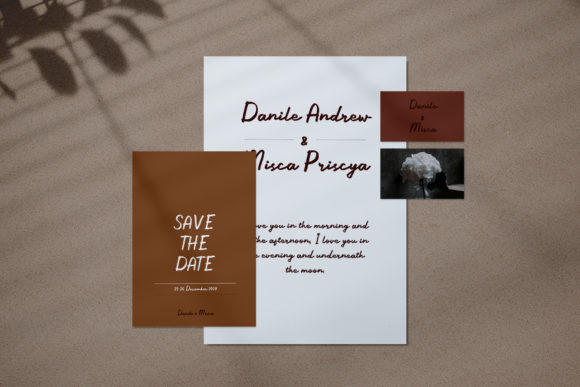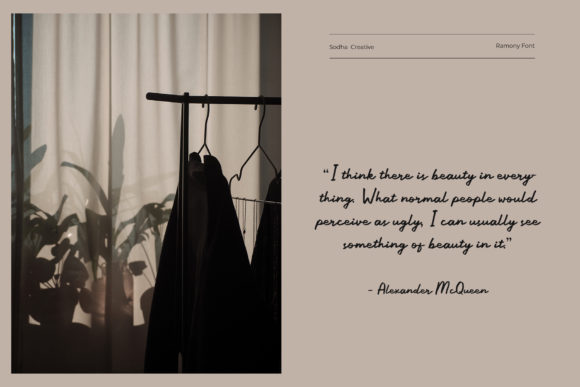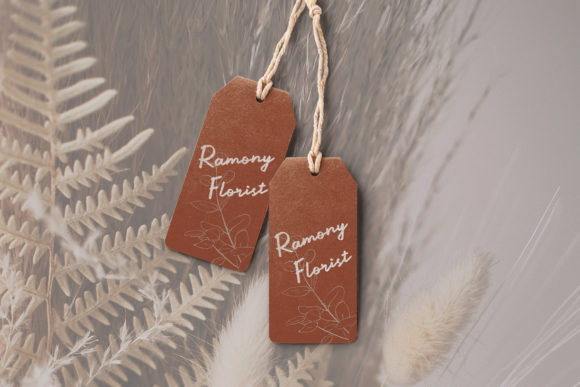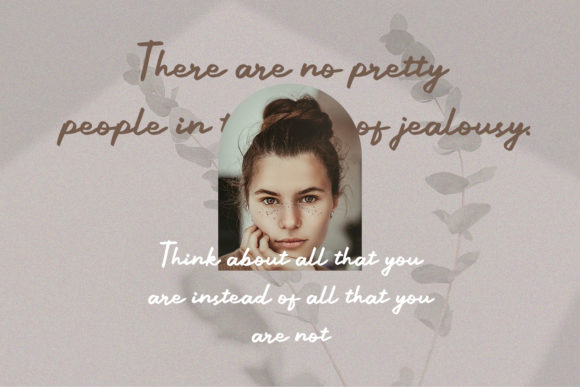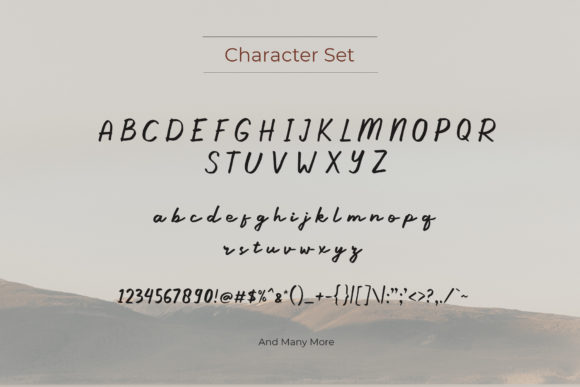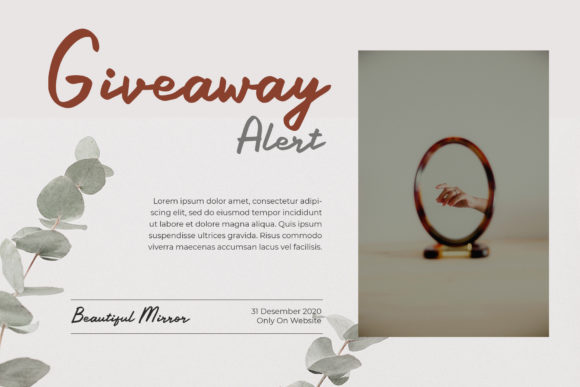
Introduction to Ramony Font
Have you ever been working on a creative project, pouring your heart and soul into it, only to feel like something is missing? You’ve tried every design element, every color palette, and every font, but still, your project doesn’t quite feel complete. This is where the perfect font can make all the difference. For designers looking to add a touch of elegance and sophistication to their work, the Ramony Font is an absolute game-changer.
This beautiful, flowing handwritten font is more than just a design element – it’s a way to add a personal touch to your work. With its well-balanced characters and high-quality design, the Ramony Font is perfect for a wide range of creative projects, from logos and stationery art to book covers and magazine designs.
Key Features of Ramony Font
• Unique, modern font style with a transparent background, ideal for adding a touch of elegance to any design.
• Includes a range of characters, including uppercase and lowercase letters, numbers, and punctuation marks.
• Designed to be highly legible at various font sizes, with a resolution of 300 DPI for crisp and clear display.
• Perfect for use in logos, branding, and other visual identity elements, as well as in body text and headings.
Honest Review: Ramony Font
I recently had the opportunity to work with the Ramony Font, and I must say it’s been a game-changer for my creative projects. As a designer, I’m always on the lookout for high-quality design resources that can elevate my work.
The Ramony Font is a stunning addition to my design arsenal, offering a unique and elegant style that’s perfect for a variety of applications. One of the standout features is its transparent background, which makes it incredibly versatile and easy to use.
• What works well: ✨ High-quality design, unique style, transparent background, and free download make it a valuable resource for any designer.
• What works well: ✨ Great for creative projects, presentations, and any design that requires a touch of sophistication.
While the Ramony Font is an excellent resource, I do have a few minor quibbles. For example, the font can be a bit finicky when it comes to resizing, which can sometimes result in a loss of quality.
Overall, I’m thoroughly impressed with the Ramony Font and would highly recommend it to any designer looking to add a touch of elegance to their work. With its high-quality design, unique style, and transparent background, it’s a valuable addition to any design library.
Tips for Getting the Most Out of Ramony Font
Experiment with different font sizes and styles to find the perfect combination for your design. Use the font in conjunction with other design elements, such as images and graphics, to create a visually appealing design.
The Ramony Font is ideal for use in various creative projects, including social media graphics, flyers, presentations, logos, and icons. The font’s high quality and transparent background make it a valuable design resource for designers and non-designers alike.